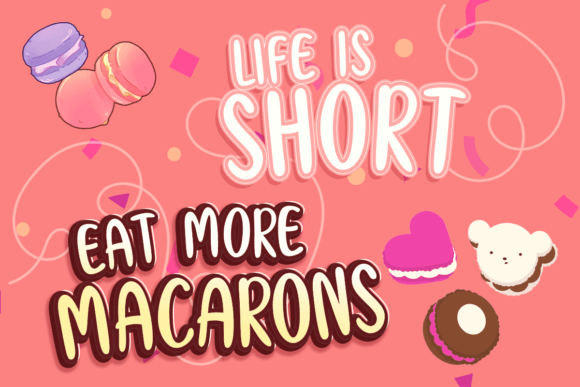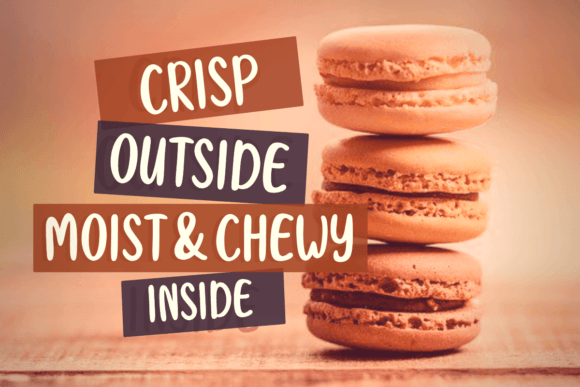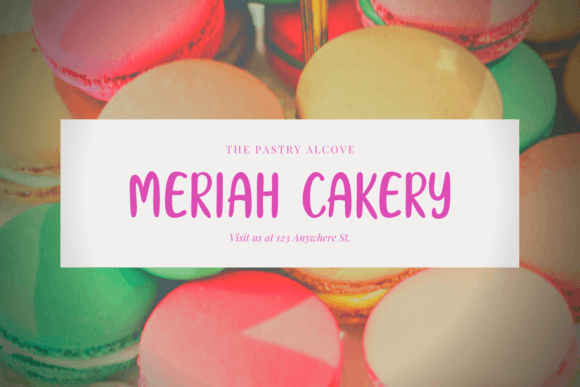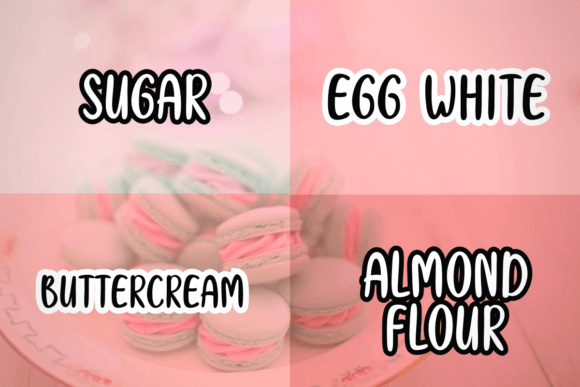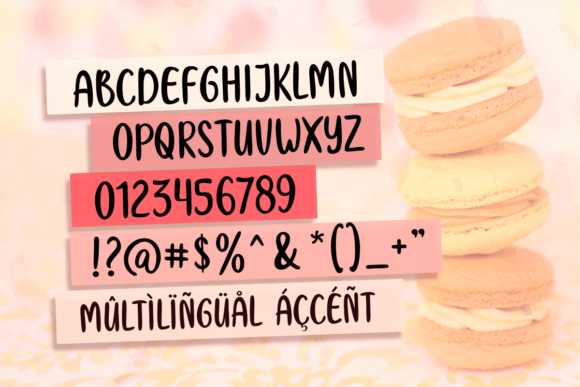
Macaron Cookies Font
About Macaron Cookies Font
Macaron Cookies, a delicate and simple handwritten display font, is an excellent choice for creating chalkboard quotes, teaching materials, and various design projects. Its simplicity and warmth bring a personal and unique touch to your creations, making it suitable for a variety of contexts.
The charming and handwritten style of Macaron Cookies adds a friendly and approachable feel to your designs. Whether you’re working on educational materials, quotes, or any other creative project, this font is designed to enhance the visual appeal with its warm and inviting look.
The versatility of Macaron Cookies makes it a valuable asset for anyone looking to infuse a personal and handwritten touch into their designs. Its clean lines and simplicity contribute to its readability, making it suitable for a wide range of applications.
Add a touch of warmth and charm to your projects with Macaron Cookies, and enjoy the creative possibilities that come with this delicate handwritten display font. Whether you’re creating educational content or decorative elements, Macaron Cookies brings a unique and delightful aesthetic to your designs.